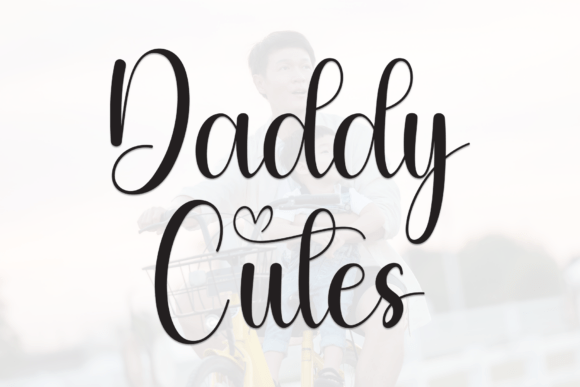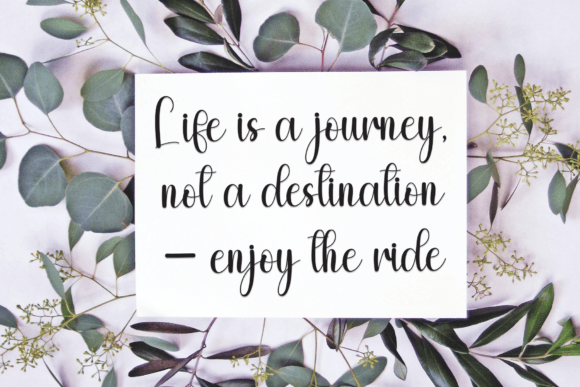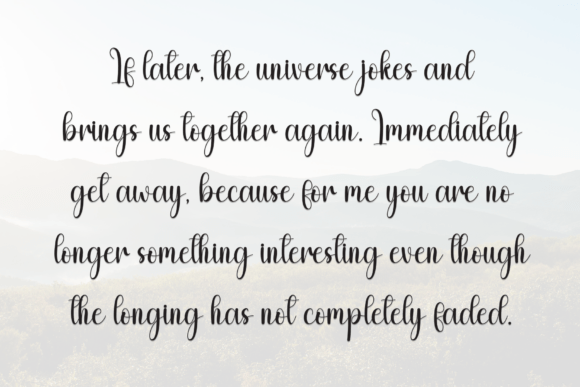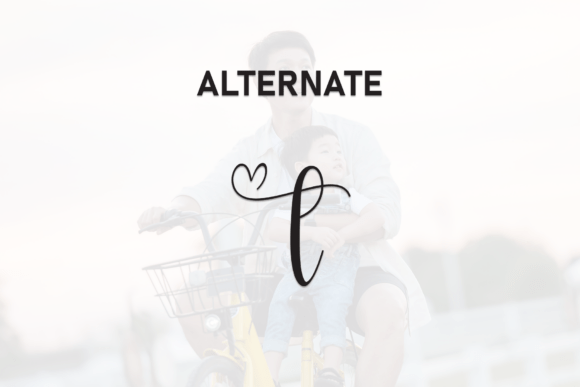
The Allure of Hand-Crafted Elegance: Unlocking the Secrets of Daddy Cutes Font
As designers, we’ve all been there – staring at a blank canvas, waiting for inspiration to strike. For some, it’s the gentle hum of a morning coffee, while for others, it’s the soft glow of a sunset. For me, it’s the thrill of discovering a new, bespoke font that sets my imagination ablaze. And that’s exactly what happened when I stumbled upon the Daddy Cutes Font – a hand-carved masterpiece that has left me spellbound.
This exquisite typeface is more than just a pretty face; it’s a treasure trove of creative potential, begging to be explored. Perfectly suited for luxury wedding invitations, personal correspondence, and any artistic endeavor seeking standout features, the Daddy Cutes Font is a testament to the confluence of elegance and creativity. As a designer, I can attest to its value – a font that truly stands out from the crowd, offering a level of refinement and sophistication that’s hard to find elsewhere.
Daddy Cute Font Key Features
- Font Family: Daddy Cute Font
- Font Size: 3,000 glyphs, including letters, symbols, and punctuation
- Resolution: Supports up to 72 dpi for optimal display on various devices
- Unique Characteristics: Includes a wide range of emotive, cute characters and symbols, ideal for creating playful and engaging designs
- Font Style: Supports both regular and bold font styles for added versatility
Daddy Cutes Font Review
Overall, I’d say Daddy Cutes Font is a fun, quirky choice for designers looking to add some personality to their projects. ✨ The font’s playful, cursive script is reminiscent of handwritten notes and adds a touch of whimsy to any design.
- Unique, hand-drawn feel that’s perfect for adding a human touch to designs ✨
- Well-suited for projects that require a touch of nostalgia or retro charm ✨
- Wide range of language support, making it a great choice for international projects ✨
- May not be the best choice for projects that require a professional, formal tone ⚠️
- Some characters may not be as legible at smaller font sizes ⚠️
- May not be suitable for text-heavy designs, as the cursive script can be overwhelming ⚠️
Overall, I think Daddy Cutes Font is a great addition to any designer’s toolkit. While it may not be the best choice for every project, it’s a fun and creative option that’s sure to add some personality to your designs.
Use Daddy Cutes Font for:
- Designing kid-friendly products and packaging.
- Creating playful social media graphics.
- Designing educational materials for children.
Remember to pair Daddy Cutes Font with other playful fonts and design elements to create a cohesive look.
Daddy Cutes Font is perfect for:
- Children’s book covers.
- Kid